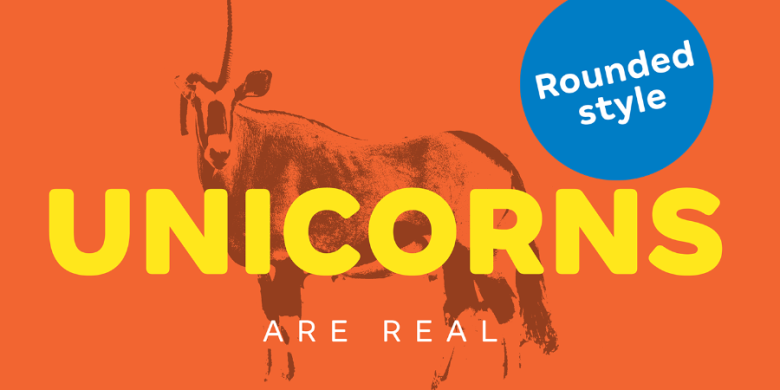
Margem Font Family
Hi! We would like to introduce the best fonts to you, if you want to have a Sans Serif typeface for your new design project, this will be a good choice. Introducing Margem Font Family. Margem designed and shared by Fabio Haag. Margem is a font family designed to cross many situations. Its humanist sans-serif construction is a solid base for legibility down to the smallest sizes; upon this, geometric shapes bring to life a contemporary design, which goes further towards geometry with stylistic variations on specific letters, shining at display sizes. Plus, a Rounded version puts a smile in any message with its friendly corners. True italics accompany all of these variations summing up to 28 fonts, designed for any situation.